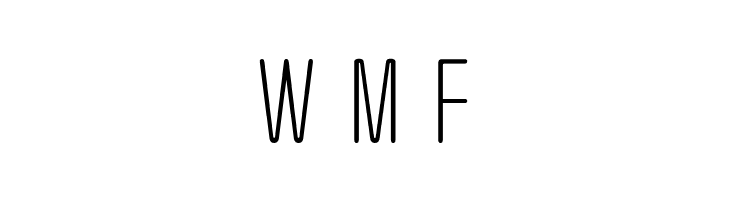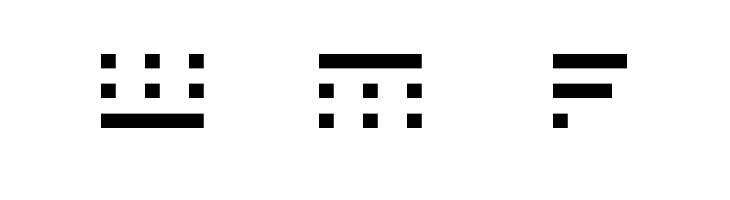
A dot matrix style font with a retro digital aesthetic.
A dot matrix font with a digital, futuristic aesthetic.
A digital-inspired font with segmented, geometric characters.
A pixelated, retro-style font inspired by early digital displays.
A pixelated, retro-style font inspired by classic 8-bit video games.
A bold, modern font with a geometric and slightly rounded design.
A pixelated, grid-based font with a retro digital style.
A digital-style font resembling seven-segment displays, perfect for tech-themed designs.
A modern, dotted font with a digital and futuristic appearance.
A bold, geometric font with a futuristic and industrial design.
A pixelated, monospaced font with a retro, digital aesthetic.
A modern, geometric font with clean lines and a structured appearance.
A modern, dot-based font with a digital aesthetic.
A dotted, geometric font with a digital, retro aesthetic.
A decorative font with continuous line style and intricate loops.
A bold, pixelated font with a retro, digital aesthetic.
A bold, playful script font with a handwritten feel.
A dynamic, expressive handwritten font with fluid strokes and playful curves.
A pixelated, monospaced font with a retro digital aesthetic.
A bold, decorative font with elegant swirls and dramatic strokes.
A futuristic dot-matrix style font with a digital display aesthetic.
Bold, geometric font with characters in square boxes for a modern look.
A clean, modern monospaced font with rounded, narrow characters.
A bold, geometric font with a digital, pixelated style.
A bold, dot matrix style font with a modern, digital aesthetic.
A dot matrix style font with a retro digital aesthetic, featuring condensed, pixelated characters.
A dot-matrix style font with a retro, pixelated appearance.
A pixelated, retro-style font ideal for digital and nostalgic designs.
A modern, geometric font with clean lines and a futuristic aesthetic.
A playful, bold font with rounded, bubbly characters.
A digital, segmented font with an italic slant, ideal for tech-themed designs.
A segmented, digital-style font inspired by classic digital displays.
A digital, tech-inspired font with geometric lines and angles.
A dot matrix style font with a digital, retro aesthetic.